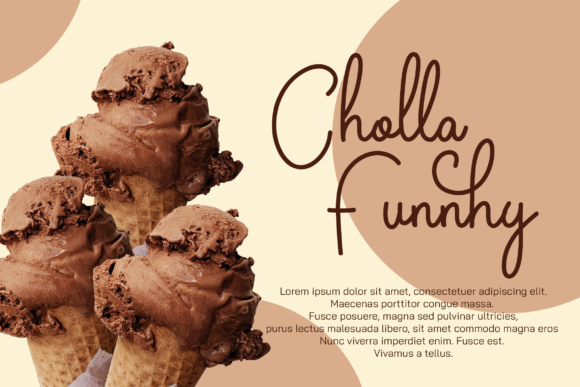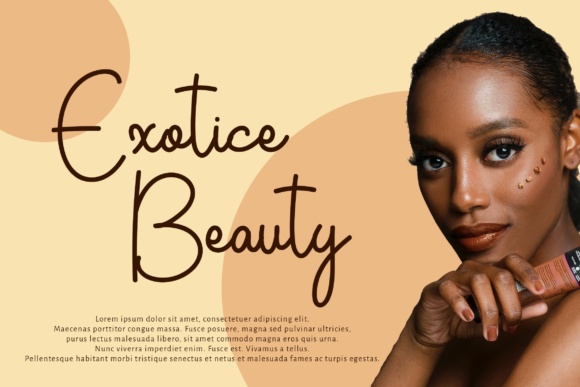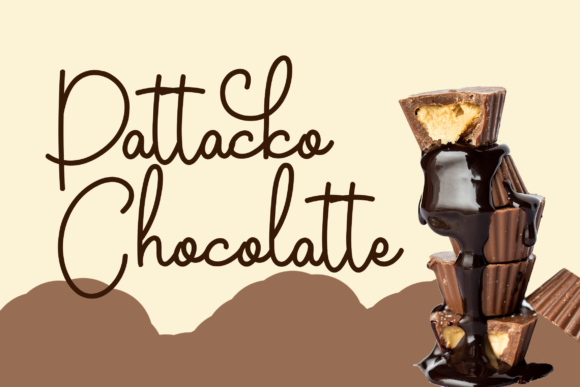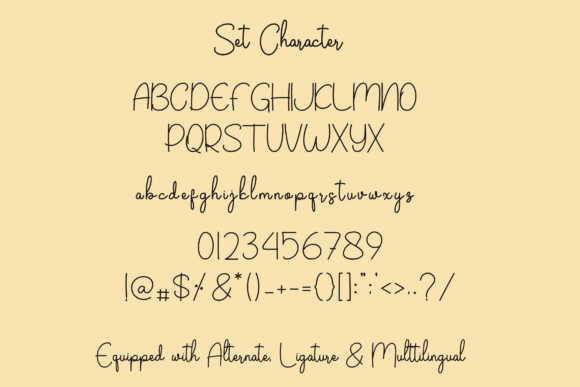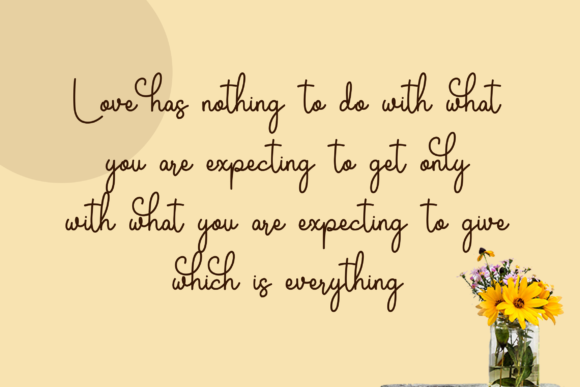
Introducing Aghellay Font: Elevate Your Designs with Elegance and Sophistication
In the world of typography, fonts play a crucial role in conveying the tone and personality of a design. For designers and crafters seeking to add a touch of luxury and sophistication to their projects, Aghellay Font is an exceptional choice. This exquisite script font is characterized by its delicate, skinny, and vintage style, making it perfect for a wide range of design applications.
What Makes Aghellay Font Stand Out?
Aghellay Font boasts a unique and captivating aesthetic, with characters that dance along the baseline. This distinctive feature adds a dynamic and elegant touch to any design, setting it apart from more traditional fonts. The font’s vintage style is reminiscent of classic calligraphy, while its delicate and skinny lines ensure that it remains modern and refined.
Key Features of Aghellay Font
- Delicate and Skinny Lines: Aghellay Font’s slender lines create a sense of elegance and sophistication, making it ideal for designs that require a touch of luxury.
- Vintage Style: The font’s classic, vintage aesthetic is perfect for designers seeking to add a nostalgic or retro touch to their projects.
- Characters that Dance Along the Baseline: This unique feature adds a dynamic and playful touch to the font, making it stand out from more traditional script fonts.
- Luxury and Sophistication: Aghellay Font is designed to add a touch of luxury and sophistication to any design project, making it perfect for high-end branding, packaging, and marketing materials.
Aghellay Font is an incredibly versatile font that can be used in a variety of design projects, including:
- Branding and Logo Design: The font’s elegant and sophisticated aesthetic makes it perfect for luxury brands seeking to create a high-end visual identity.
- Packaging Design: Aghellay Font is ideal for packaging design, adding a touch of luxury and sophistication to product labels and packaging materials.
- Marketing and Advertising: The font’s vintage style and elegant lines make it perfect for marketing and advertising materials, such as brochures, flyers, and posters.
- Stationery and Invitations: Aghellay Font is also suitable for stationery and invitation design, adding a touch of elegance and sophistication to wedding invitations, business cards, and letterheads.
Tips for Using Aghellay Font Effectively
To get the most out of Aghellay Font, consider the following tips:
- Use it as a Headline Font: Aghellay Font is perfect for headlines and titles, where its elegant and sophisticated aesthetic can be showcased.
- Pair it with a Simple Font: To create visual interest, pair Aghellay Font with a simple, sans-serif font for body text.
- Experiment with Colors: Aghellay Font looks stunning in a range of colors, from metallic gold and silver to rich jewel tones.
Aghellay Font is an exceptional script font that offers a unique blend of elegance, sophistication, and luxury. Its delicate, skinny, and vintage style makes it perfect for a wide range of design projects, from branding and packaging to marketing and stationery. With its distinctive characters that dance along the baseline, Aghellay Font is sure to add a touch of luxury and sophistication to any design project. Whether you’re a designer or crafter, Aghellay Font is an excellent choice for anyone seeking to elevate their designs and create something truly special.